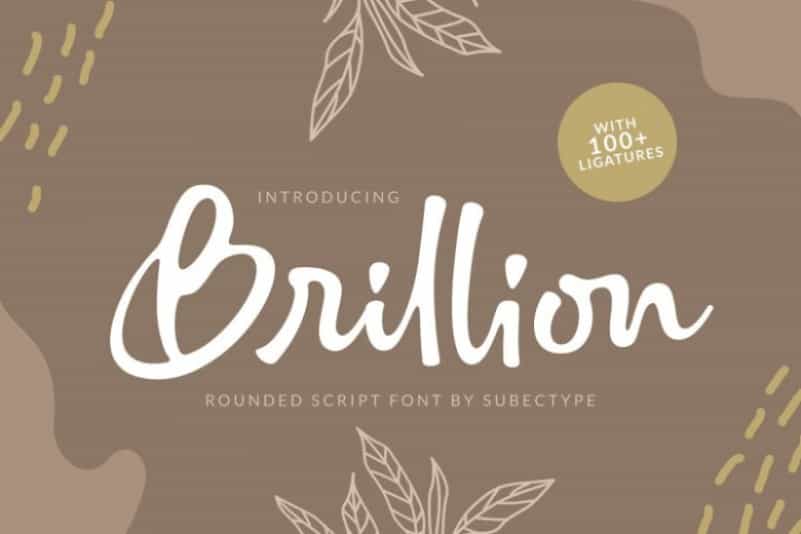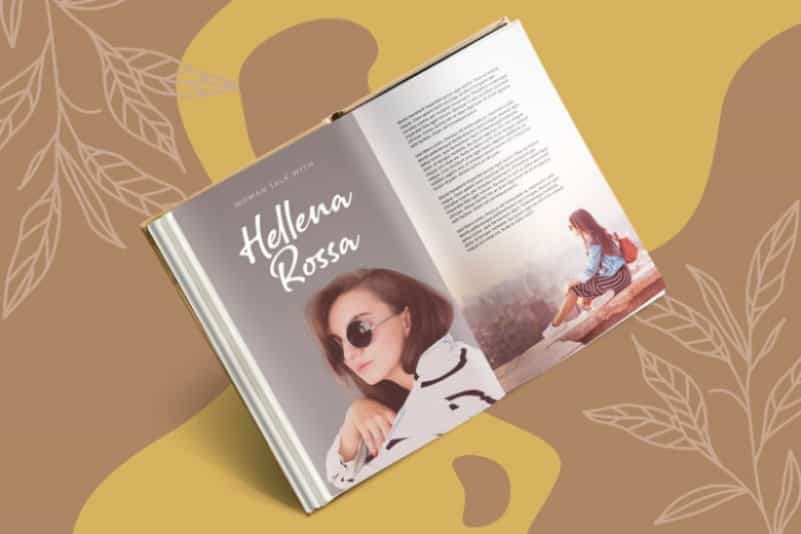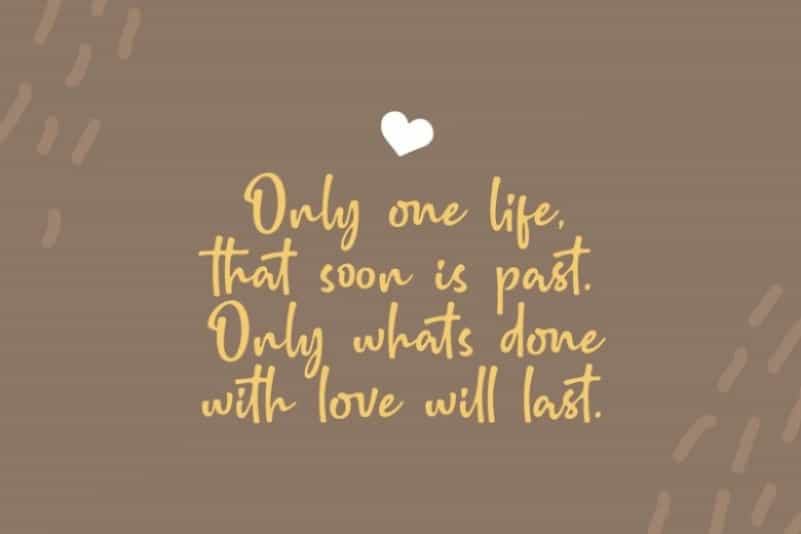
Discover Brillion Font, part of the Brush Handwritten collection—a versatile and unique font perfect for adding a personal touch to your projects. Download it for free and enjoy crafting designs with style, from invitations to social media posts. This font is available exclusively for personal use, giving you the freedom to create without limits. Unlock your creativity with Brillion Font today!
Brillion font is a natural handwritten font that makes your designs projects such as logo, signature, invitation, stationery, wedding, photo watermark, social media post, advertisements, posters, product packaging, labels, photography, event post, and more.